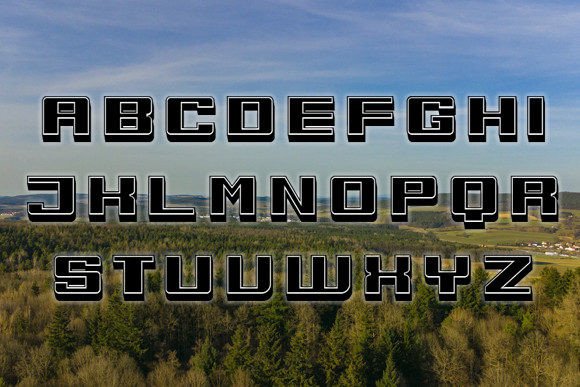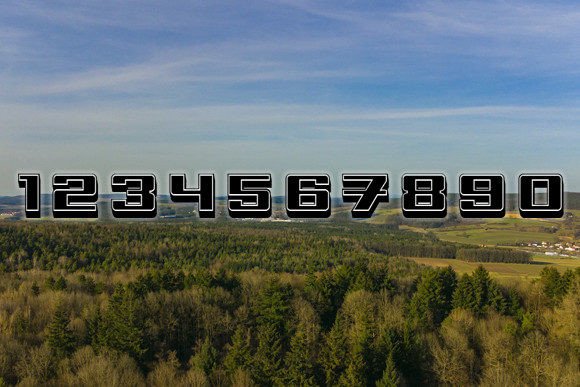
Introducing Amberg Font: Elevate Your Designs with Stunning 3D Typography
Are you tired of using the same old fonts in your designs? Look no further than Amberg Font, an awesome 3D typeface that will add a touch of sophistication and style to any project. With its unique and eye-catching design, Amberg is perfect for designers and crafters looking to make a statement.
What is Amberg Font?
Amberg Font is a 3D typeface that boasts a modern and sleek design. Its bold and chunky letters are perfect for creating stunning visual effects that will grab the attention of your audience. Whether you’re working on a poster, flyer, or any other design project, Amberg Font is sure to impress.
Key Features of Amberg Font
- Unique 3D Design: Amberg Font features a one-of-a-kind 3D design that will set your designs apart from the rest.
- High-Quality Letters: The font includes high-quality letters that are perfect for use in a variety of design projects.
- Easily Customizable: Amberg Font is easily customizable, allowing you to adjust the font to fit your design needs.
Benefits of Using Amberg Font
So why should you use Amberg Font in your designs? Here are just a few benefits:
- Adds Visual Interest: The 3D design of Amberg Font adds visual interest to your designs, making them more engaging and attention-grabbing.
- Perfect for Headers and Titles: The bold and chunky design of Amberg Font makes it perfect for use in headers and titles.
- Increases Brand Recognition: By using a unique and memorable font like Amberg, you can increase brand recognition and establish your brand’s identity.
How to Use Amberg Font in Your Designs
Using Amberg Font in your designs is easy. Here are a few tips to get you started:
- Pair with Other Fonts: Pair Amberg Font with other fonts to create a unique and visually appealing design.
- Use in Combination with Images: Use Amberg Font in combination with images to create a stunning visual effect.
Design Ideas Using Amberg Font
- Posters: Use Amberg Font to create eye-catching posters that will grab the attention of your audience.
- Flyers: Add a touch of sophistication to your flyers with Amberg Font.
- Brochures: Use Amberg Font to create stunning brochures that will showcase your brand’s products or services.
- Social Media Graphics: Use Amberg Font to create visually appealing social media graphics that will help you stand out from the crowd.
In conclusion, Amberg Font is an awesome 3D typeface that will elevate your designs to the next level. With its unique and eye-catching design, Amberg is perfect for designers and crafters looking to make a statement. Whether you’re working on a poster, flyer, or any other design project, Amberg Font is sure to impress. So why wait? Download Amberg Font today and start creating stunning designs that will leave a lasting impression on your audience.